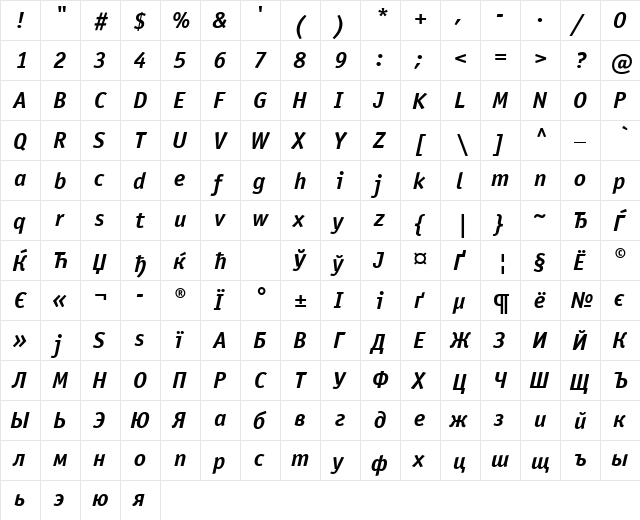
OfficinaSansCTT BoldItalic
Design Context for OfficinaSansCTT Typeface
OfficinaSansCTT offers clean, dependable letterforms without strong stylistic allegiance, making it a practical choice for designers who need flexibility. The slanted form adds forward momentum and visual energy. Its bold stroke weight gives it real presence on the page.
Pro Tip: Use OfficinaSansCTT for emphasis, pull quotes, and subheadings where its slanted energy can add rhythm to the layout.